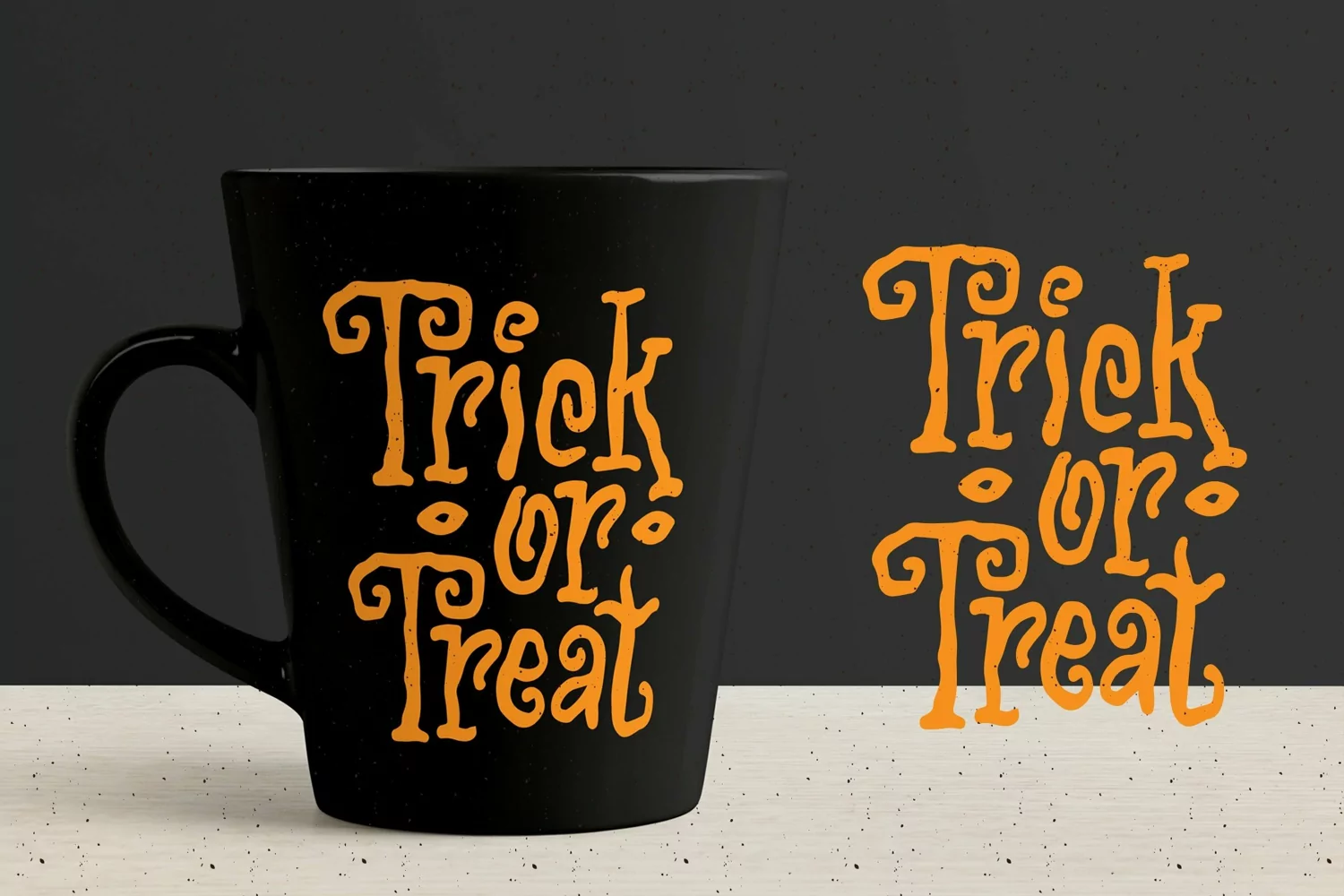
Estheiory - Spooky Fonts that contain lowercase, uppercase, symbol, and also support multi language. There’s a lot ligatures in this font. This Font also comes with ligatures, alternates and many more. this font suitable for fashion, branding, catalog and other design what you want.